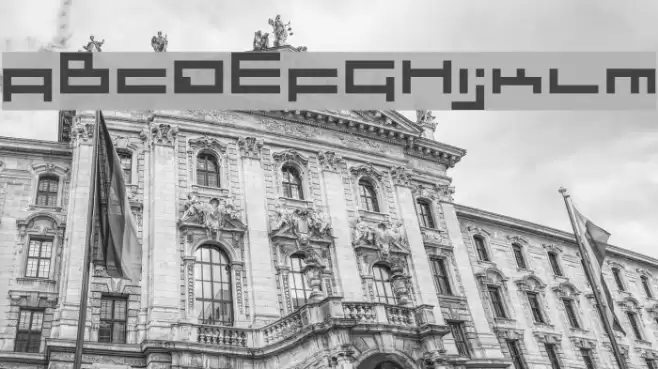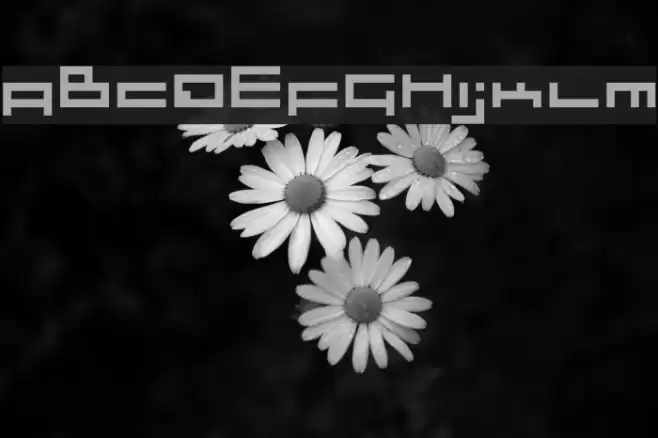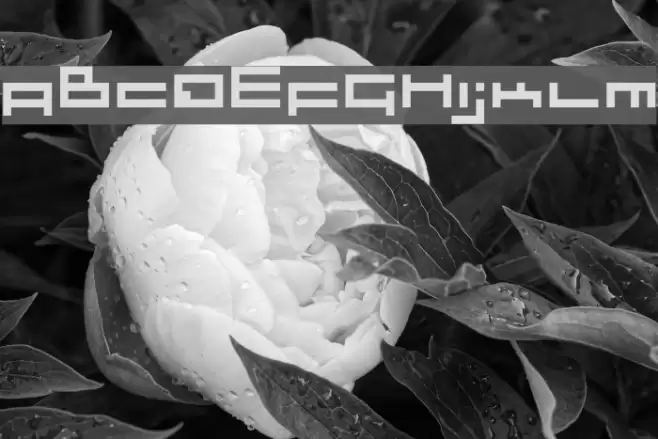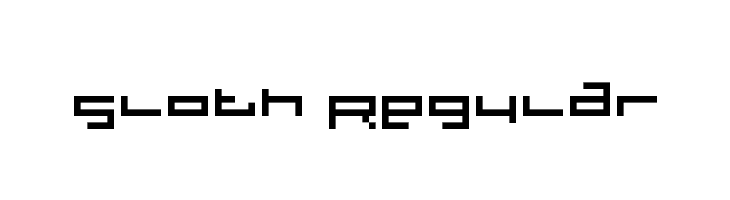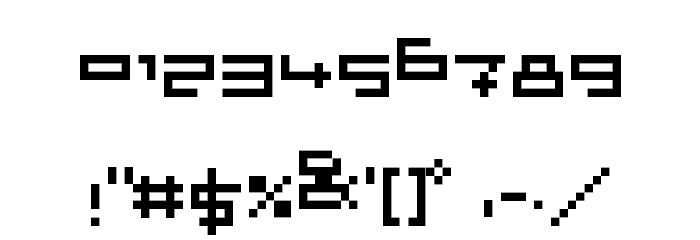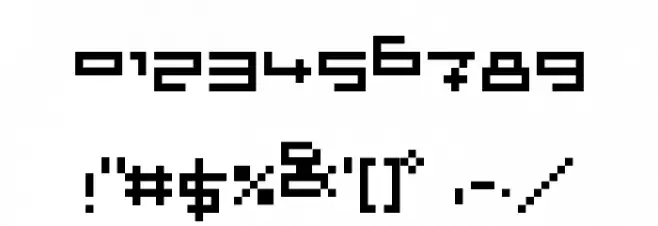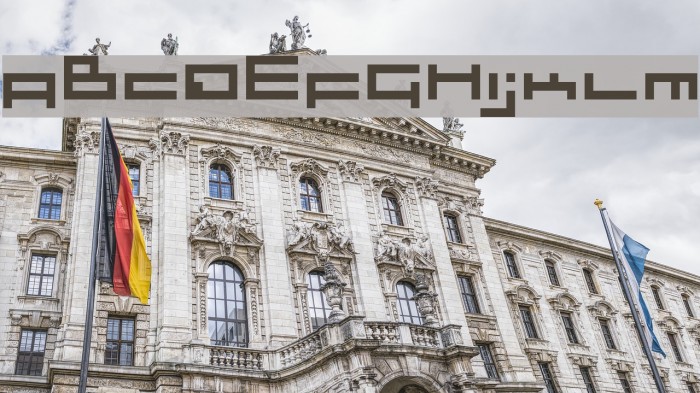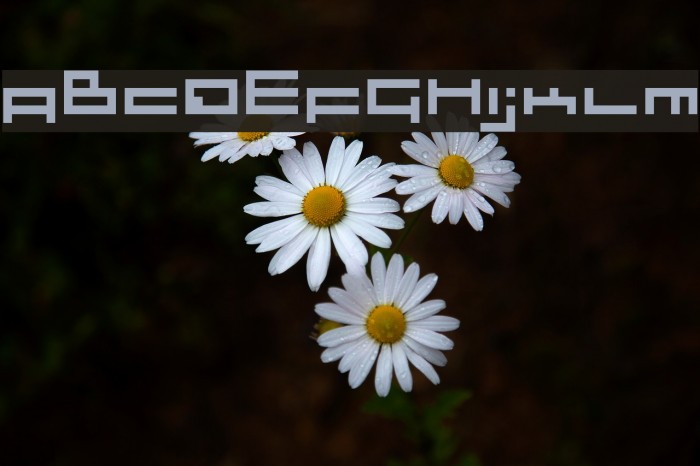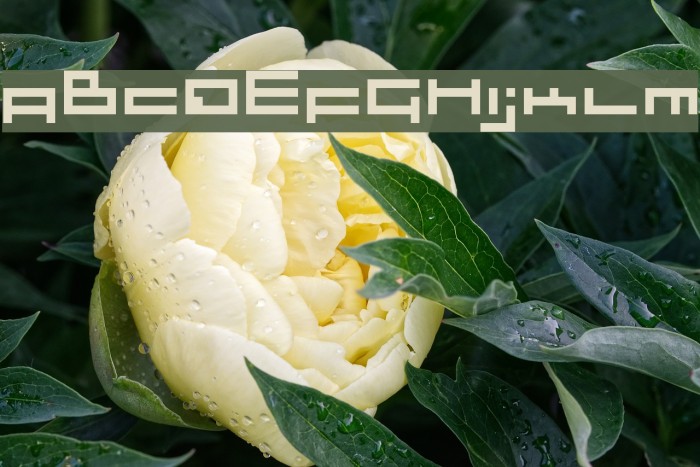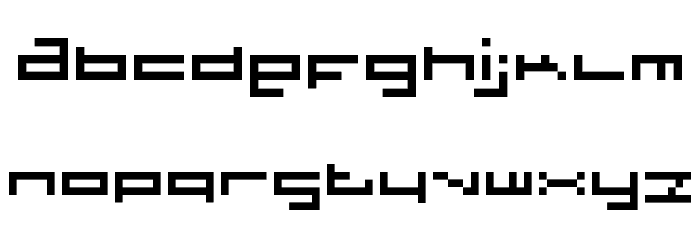
sloth Regular Font
sloth Regular Description
This font features a pixelated, geometric design that evokes a retro, digital aesthetic. Each character is constructed with a blocky, grid-like structure, reminiscent of early computer graphics or video game typography. The uniformity in stroke width across all characters gives it a monospaced appearance, although it is not strictly monospaced. The uppercase and lowercase letters maintain a consistent height, contributing to a cohesive look. Numbers and special characters follow the same pixelated style, ensuring visual harmony throughout. This font's distinct style makes it ideal for projects that aim to capture a vintage or tech-inspired theme.
A pixelated, geometric font with a retro digital aesthetic from Pixel fonts.
- Overall Style: Vintage